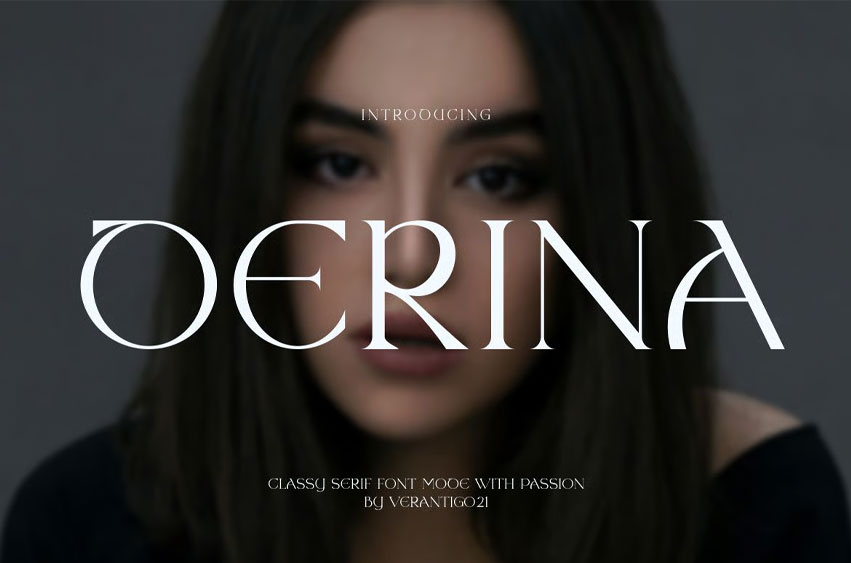
Derina Font is an essential font collection that combines three fonts, including bold serif, classic sans, and stylish script. This font trio also supports multilingual, numbers, and symbols.
With the versatile style, you can use this font for any purpose, such as logotype, branding, wedding invitations, and quotes. The best part is, you don’t need to search for the pairing. It’s gonna complement each other.
- Lowercase
- Numeral & Punctuation
- Ligatures